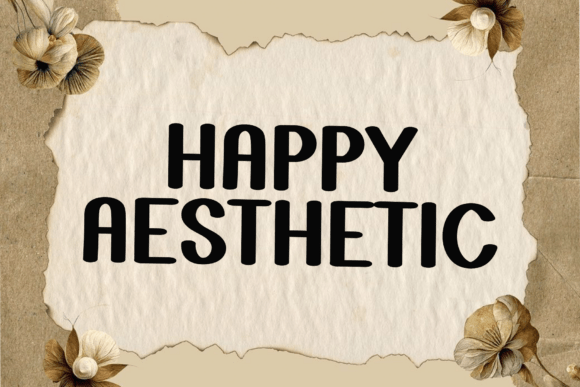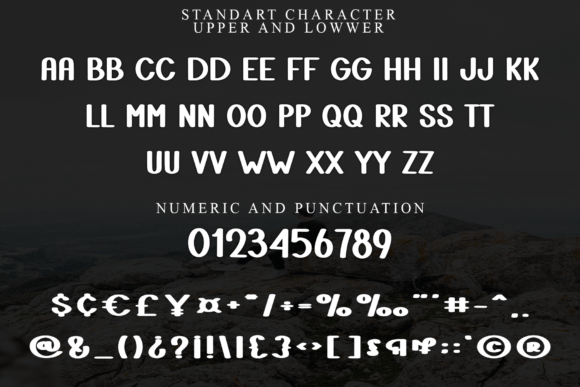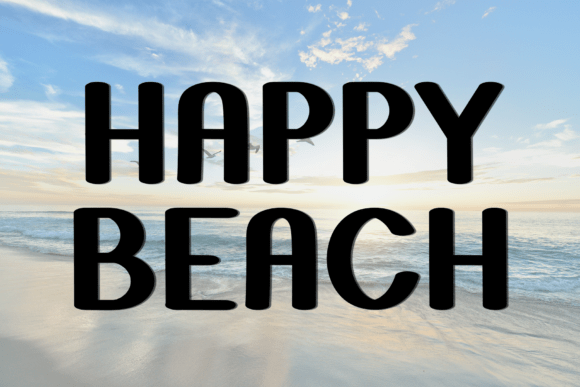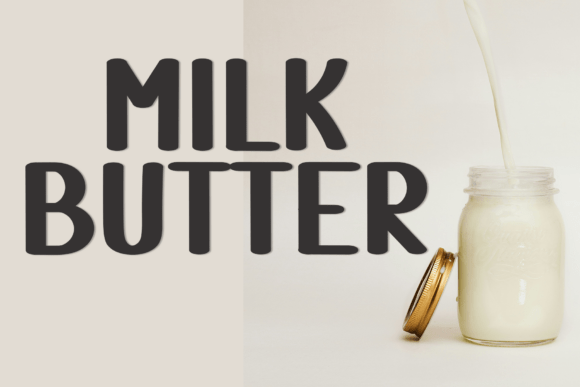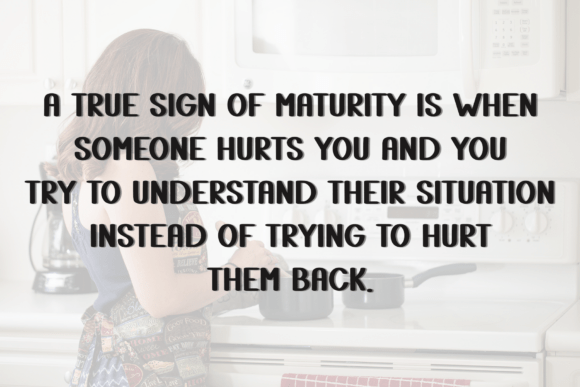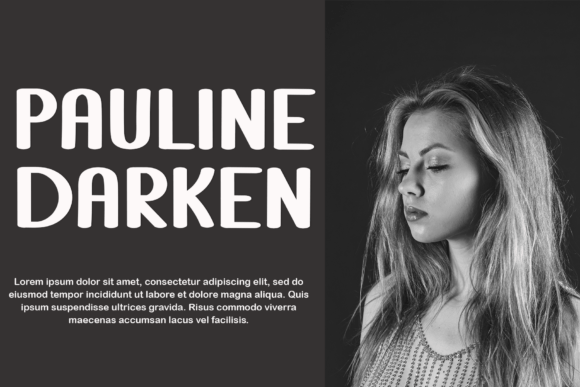
Unwrap the Magic of Book Blurb Font
As I sat at my desk, surrounded by twinkling lights and the soft glow of candles, I felt the creative juices flowing. It was the perfect moment to break out the holiday fonts and add some festive flair to my designs. And that’s when I stumbled upon the Book Blurb Font – a delightful and merry typeface that perfectly captured the spirit of the season.
With its whimsical flair and decorative elements, Book Blurb Font adds a touch of enchantment to any design. Whether you’re creating greeting cards, gift tags, or holiday-themed projects, this font brings a cheerful and nostalgic ambiance to your words. For designers, it’s a valuable asset to have in their toolkit – a way to add a personal touch and make their designs stand out during the holiday season.
• Size and Style Options: This font family includes 4 different weights (Light, Regular, Bold, and Heavy), allowing designers to choose the perfect style to suit their book cover or title.
• Resolution and Legibility: Book Blurb Font is designed to be highly legible at various resolutions, including screen display and print, ensuring that your book title will look great in any format.
• Unique Characteristics: The font’s distinctive curves and rounded edges give it a friendly, approachable feel that’s perfect for fiction and non-fiction book covers, while its clean lines make it suitable for a wide range of genres.
Book Blurb Font Review
As a designer, I was excited to dive into the Book Blurb Font, hoping it would bring a touch of elegance to my clients’ book covers. Here’s my honest review:
• The font’s classic feel immediately evokes a sense of sophistication, perfect for literary fiction or non-fiction titles.
• The font’s readability is excellent, even at smaller sizes, making it ideal for book blurbs and author names.
• The font’s flexibility allows it to work well in both digital and print formats.
• The font may feel a bit too traditional for some modern or edgy book covers.
• The font family is relatively small, which may limit its use in specific design contexts.
• The font’s lack of bold or italic styles may make it less versatile than other font options.
Overall, I think Book Blurb Font is a solid choice for book covers that require a timeless, elegant look. While it may not be the most modern or versatile font, it gets the job done and is a great option for designers who want to create a classic, sophisticated look.
Use the Book Blurb Font to create eye-catching book titles, headings, and promotional materials.
Pair the font with a clean and simple design to create a professional look.
Experiment with different font sizes and styles to add visual interest.
Book covers
Book titles
Author profiles
Book promotions
Alternatives to Book Blurb Font for Designers
Merriweather is a classic serif font that works well for body text and headings. It has a warm and elegant feel, making it suitable for books, magazines, and other print materials. Merriweather is a good choice when you need a font that conveys a sense of sophistication and tradition.
Compared to Book Blurb Font, Merriweather has a more formal and refined look. It’s a bit more ornate, which can make it stand out in certain contexts.
Georgia is a serif font designed specifically for digital media. It’s clear and readable, making it a good choice for body text and headlines. Georgia is a good choice when you need a font that’s easy to read on screens.
Compared to Book Blurb Font, Georgia is more modern and clean. It’s designed for digital use, so it’s optimized for screens.
How do I ensure my book blurb font is legible on different devices?
To ensure your book blurb font is legible on different devices, use a font with a clear and consistent character set, and avoid using fonts with excessive ornamentation or flourishes. Also, consider using a font with a high x-height to improve readability on smaller screens. Additionally, use a font size and line height that is consistent with standard design guidelines for digital media.